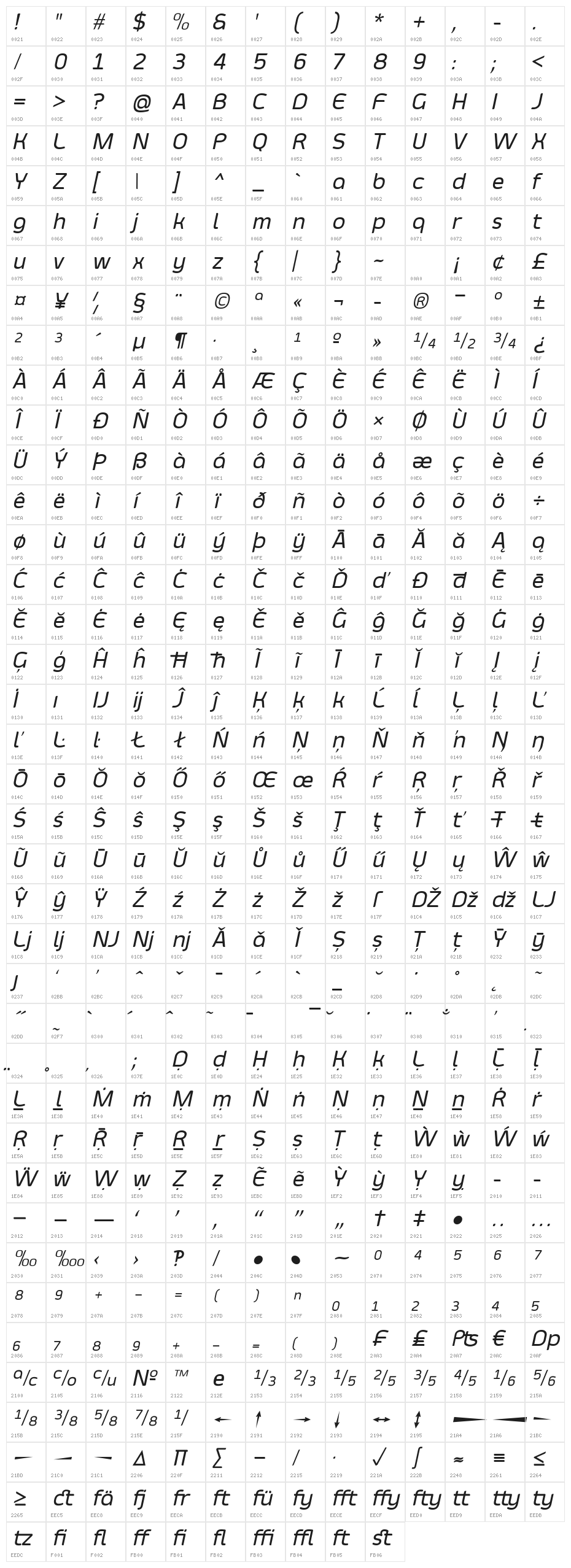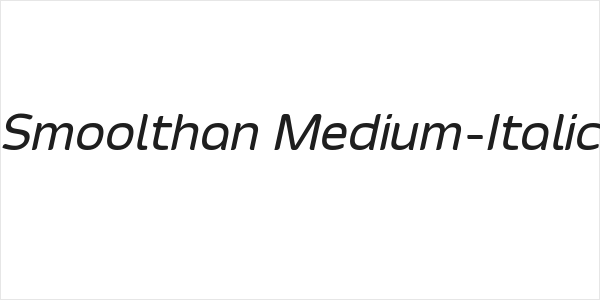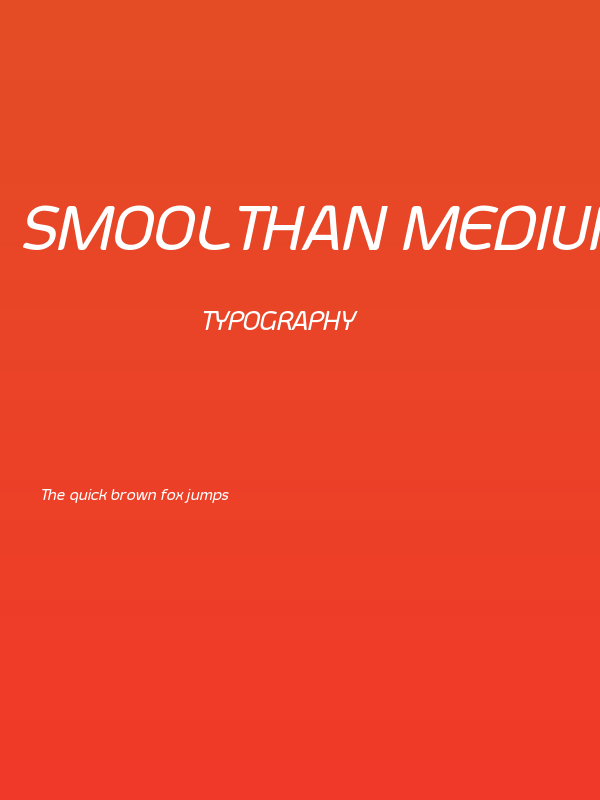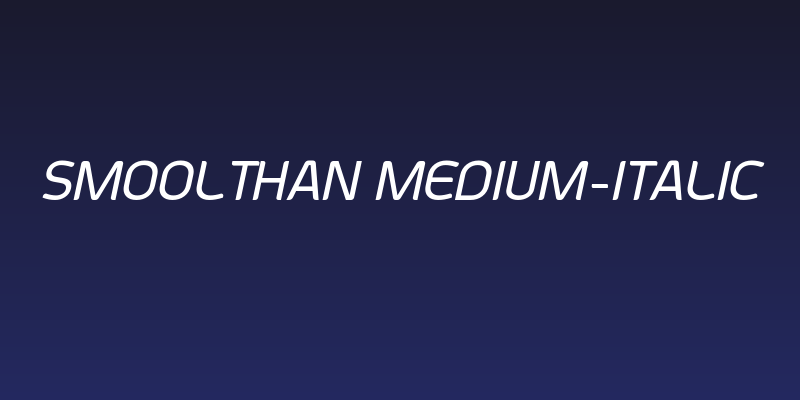
Smoolthan Medium-Italic Font
Smoolthan Medium-Italic Description
This font presents a sleek and modern appearance with its italicized style, giving it a dynamic and forward-moving feel. The characters are slightly slanted, enhancing the sense of motion and fluidity. The strokes are consistent, with medium contrast, providing a clean and professional look. The font maintains a balanced proportion between the height and width of the characters, ensuring readability while retaining a unique style. The spacing between characters is normal, allowing for clear legibility in both small and large sizes. This font is versatile, suitable for various design projects that require a contemporary and stylish touch.